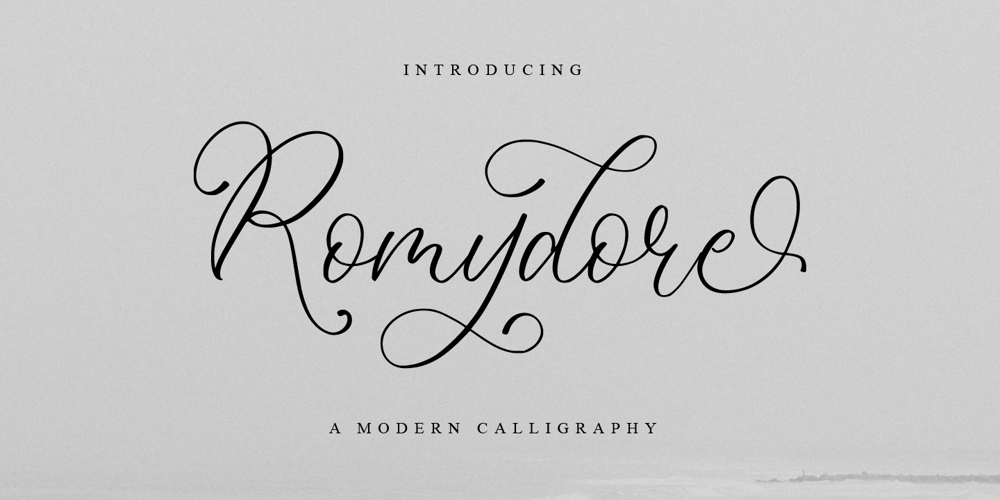
Romydore
Romydore Font Family was designed by Novia Himatunnisa and published by Nissa Nana. Romydore contains 1 styles and family package options. Romydore is an elegant handwritten font that feels equally charming and elegant. It looks stunning on wedding invitations, thank you cards, quotes, greeting cards, logos, business cards, and every other design which needs a customized touch.